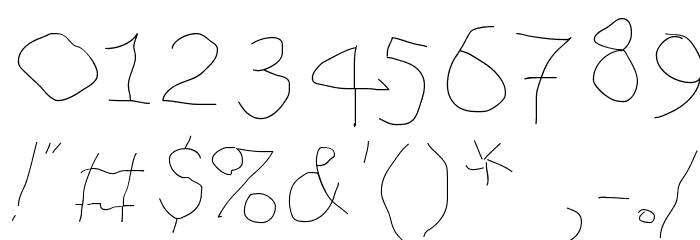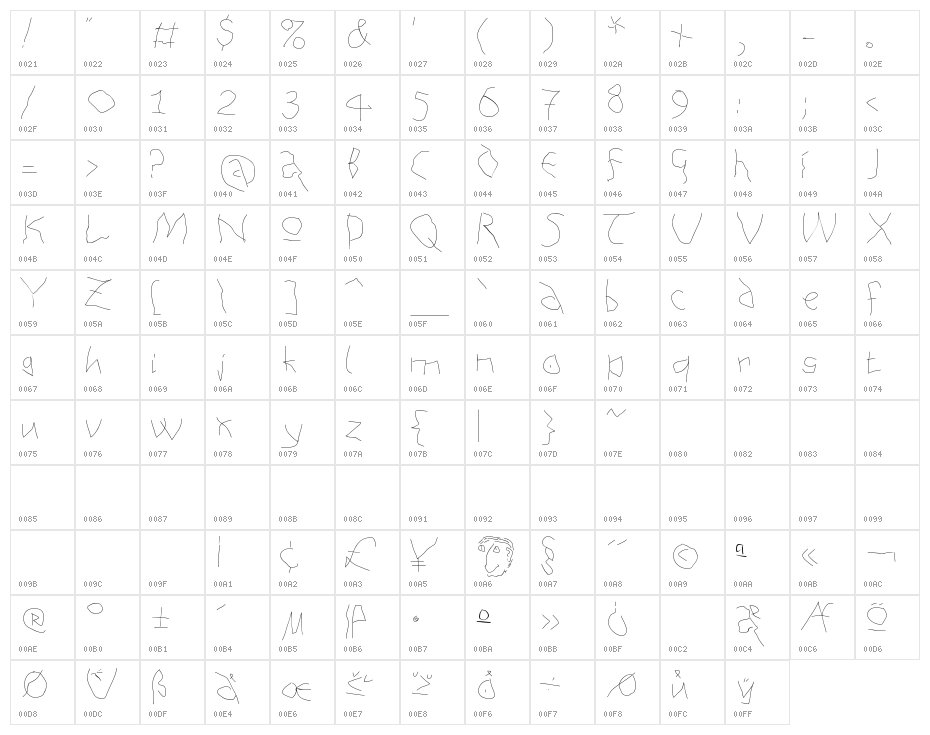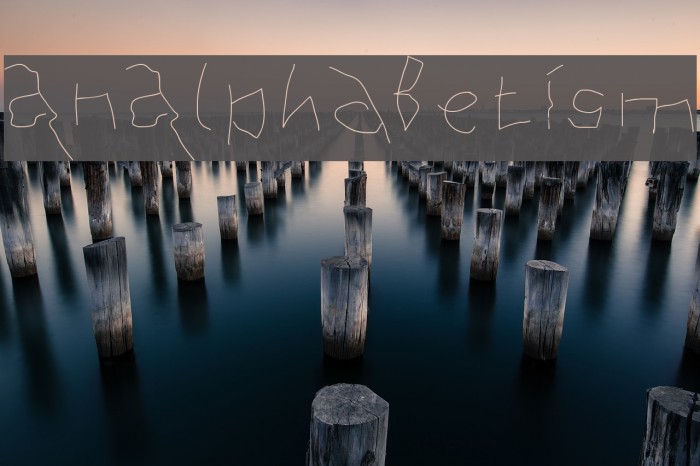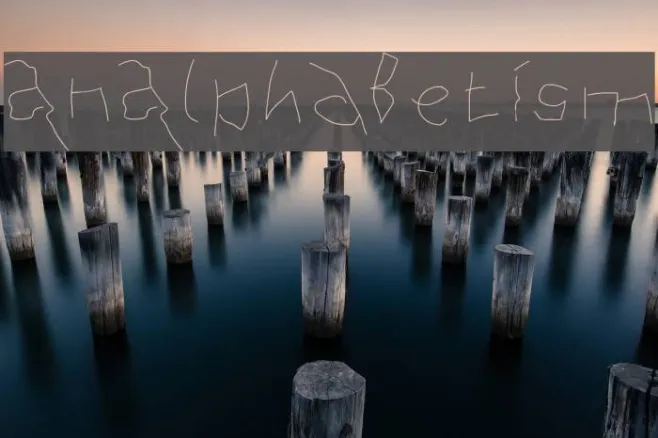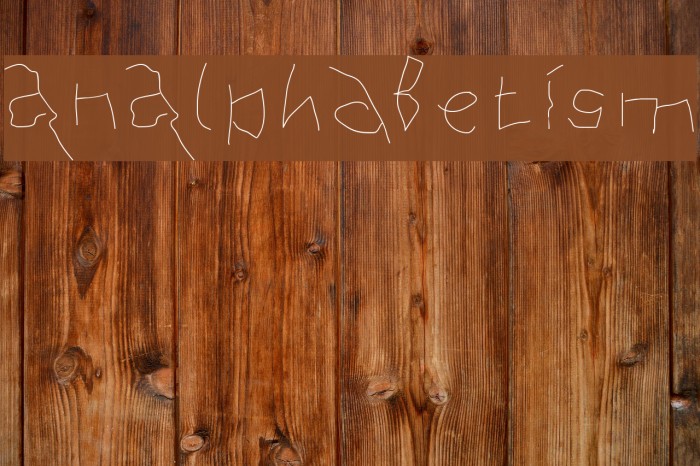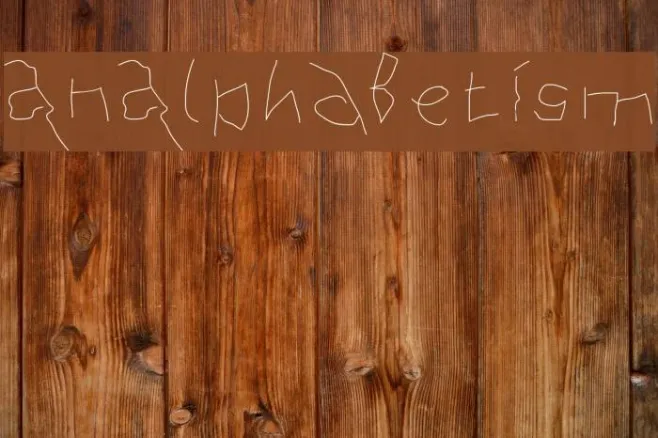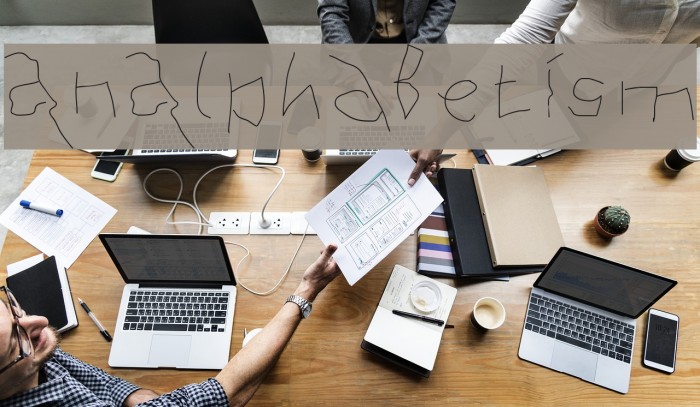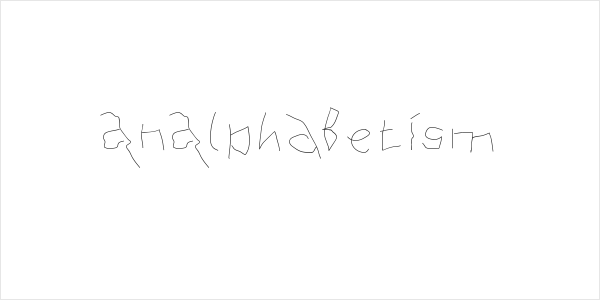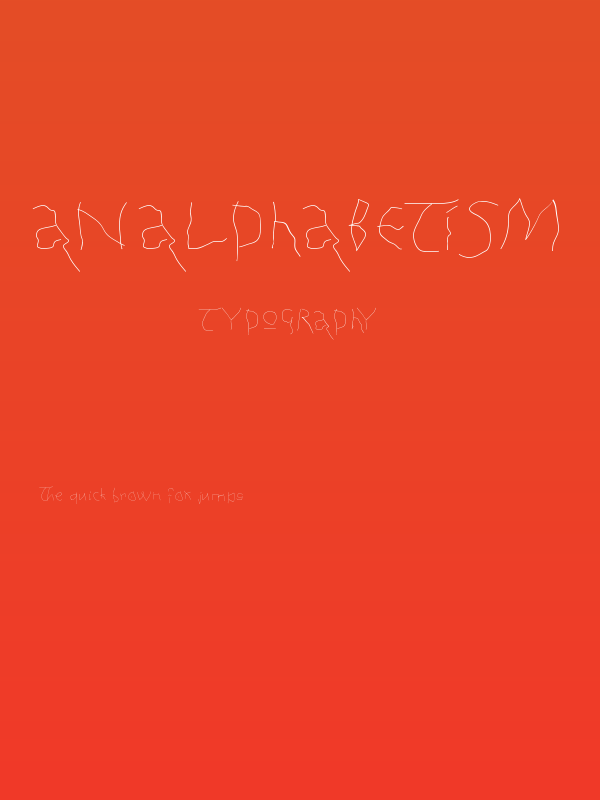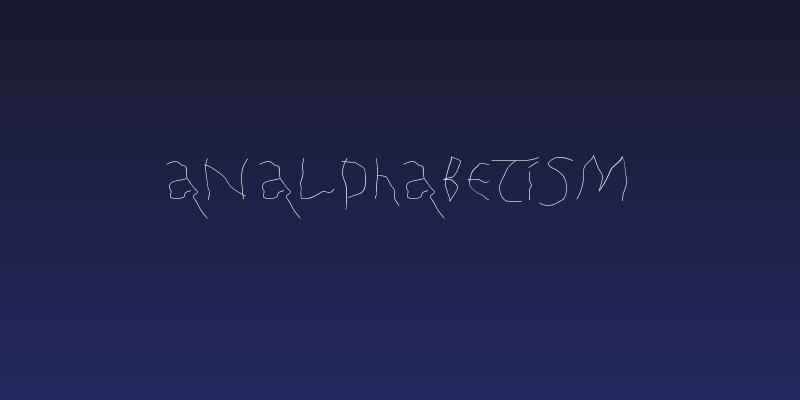
AnAlphaBetIsm Font
AnAlphaBetIsm Description
This font features a unique, hand-drawn style with irregular, jagged lines that give it a raw and organic feel. The characters are unevenly shaped, with varying heights and widths, creating a sense of spontaneity and artistic flair. The uppercase and lowercase letters maintain a consistent style, with the uppercase being slightly more angular. Numbers and special characters follow the same aesthetic, adding to the cohesive look. This font's distinctive appearance makes it stand out, offering a playful and unconventional vibe.
| Use Case | Logos, Posters, Artistic Designs |
| Proposed Projects | Ideal for creative projects such as art posters, children's book illustrations, or any design requiring a playful and unique touch. |